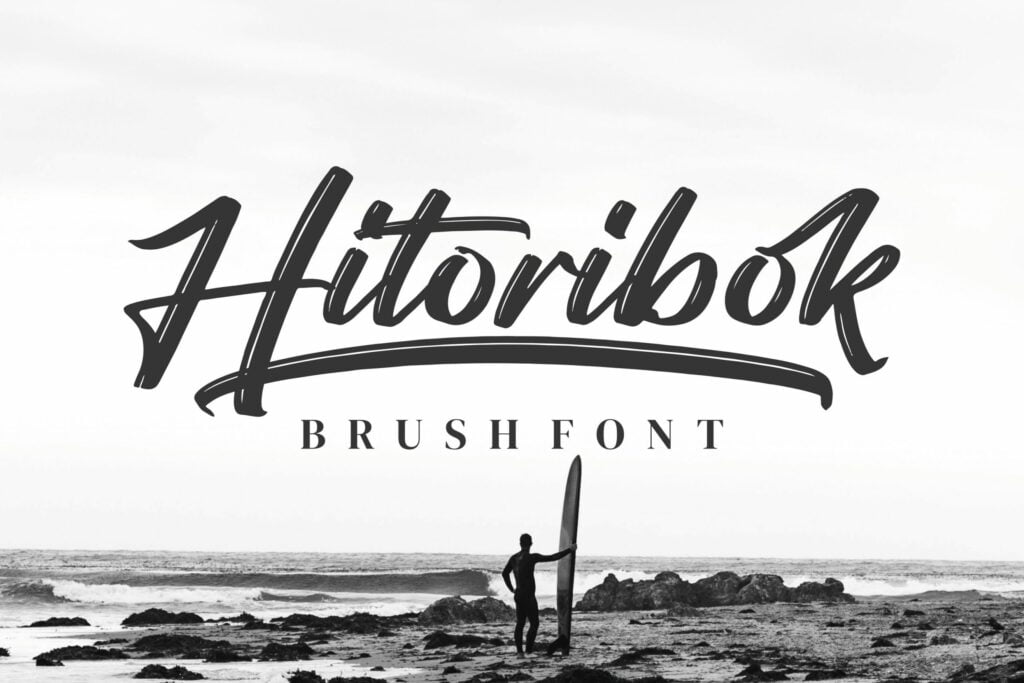
Hitoribok Font
Hitoribok Brush Font, from Integritype Studio, is a premium Brush font, suitable for any projects such as: logos, branding projects, homeware designs, product packaging, mugs, quotes, posters, shopping bags, t-shirts, book covers, name card, invitation cards, greeting cards, label, photography, watermark, special events, and all your other luxury projects that need a premium signature taste.
Hitoribok Script Brush Font